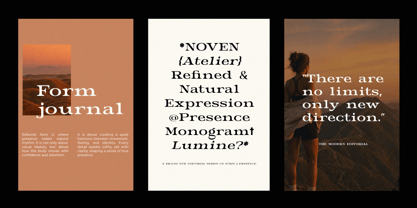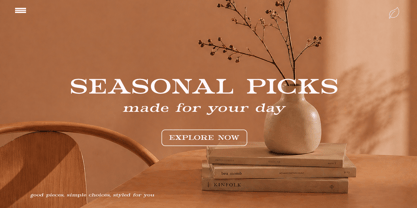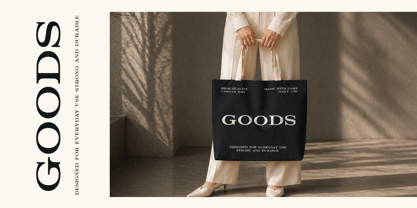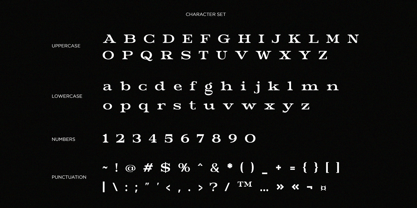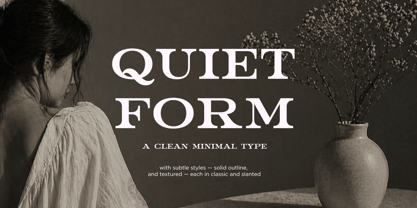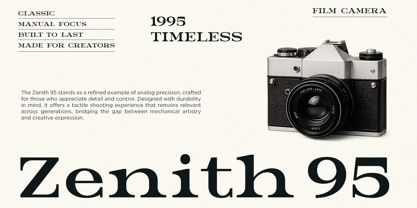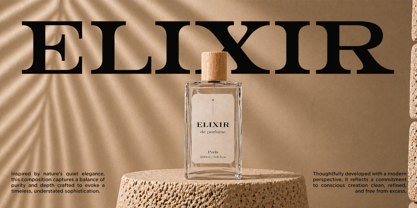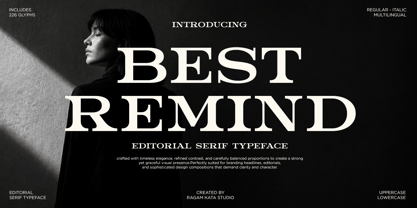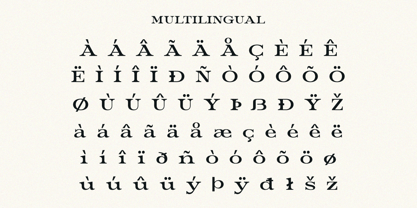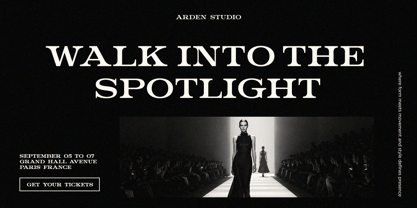
Best Remind
La familia tipográfica Best Remind fue diseñada por Yogiswhara Dio Prakoso Riadi y publicada por RagamKata. Best Remind contiene 2 estilos y opciones de paquete familiar. Más información sobre esta familia
Introducing Best Remind, a sophisticated editorial serif typeface crafted for designers who seek timeless elegance and commanding visual impact. With its refined high-contrast letterforms, balanced proportions, and graceful serif detailing, this font delivers a premium aesthetic perfect for luxury branding, editorial headlines, fashion campaigns, magazine layouts, and upscale packaging design. The included Regular and Italic styles provide versatile creative freedom, allowing your typography to move effortlessly between bold statements and elegant storytelling.
Designed with clarity, sophistication, and versatility in mind, Best Remind excels in logo design, beauty branding, premium product packaging, wedding invitations, boutique marketing materials, and modern editorial compositions. Its elegant uppercase structure creates a powerful visual presence, while multilingual support and complete punctuation make it highly functional for professional international projects. Whether you're building a fashion identity, premium cosmetics brand, or editorial publication, this typeface adds unmistakable luxury character.
Best Remind is the perfect serif font for creators who need stylish typography with strong commercial appeal. Its timeless editorial personality blends classic sophistication with modern luxury trends, making it highly desirable for branding-focused design projects across digital and print media.
- Regular and Italic Style
- Uppercase and Lowercase
- Number and Punctuation
- Multilingual Support